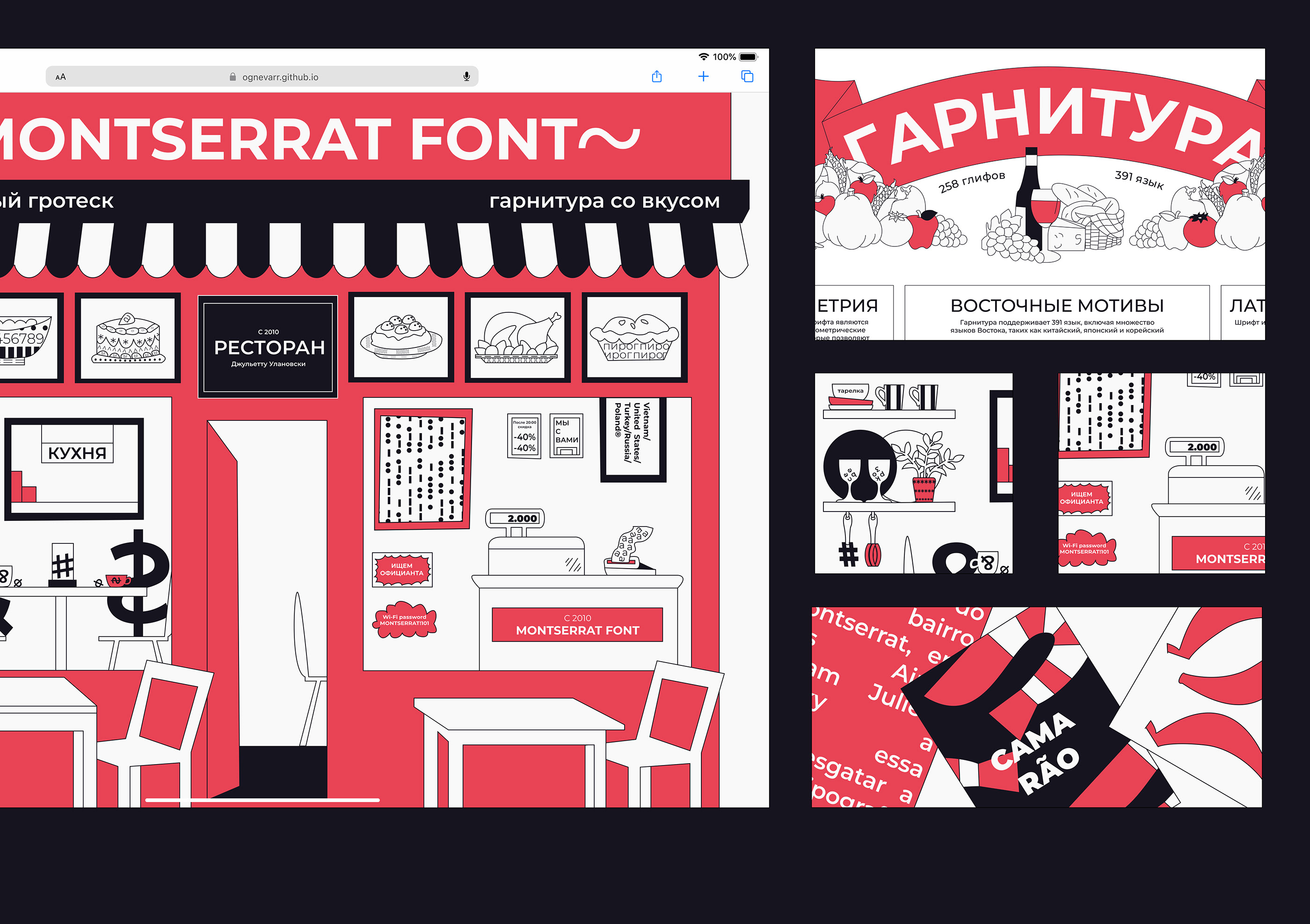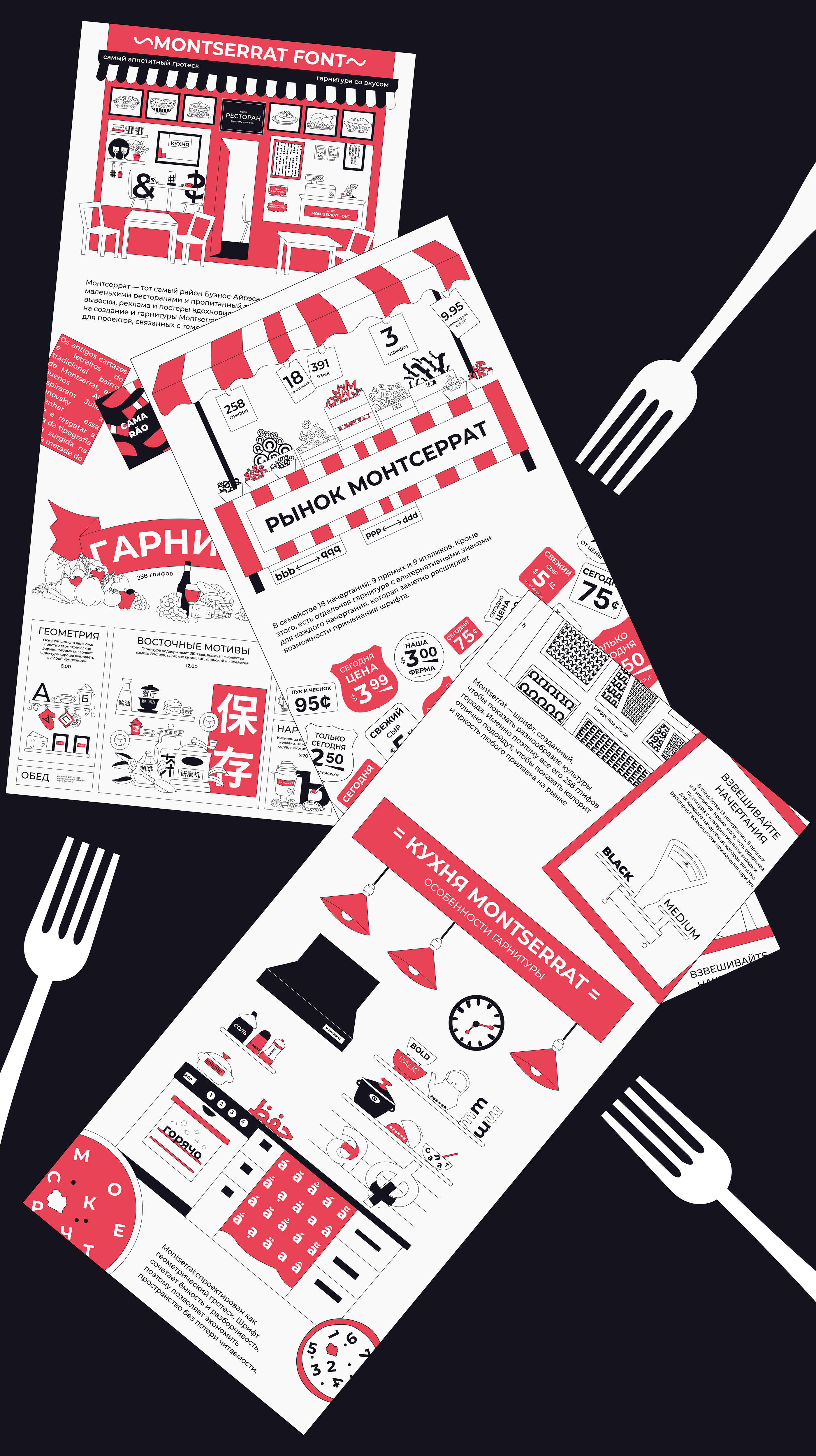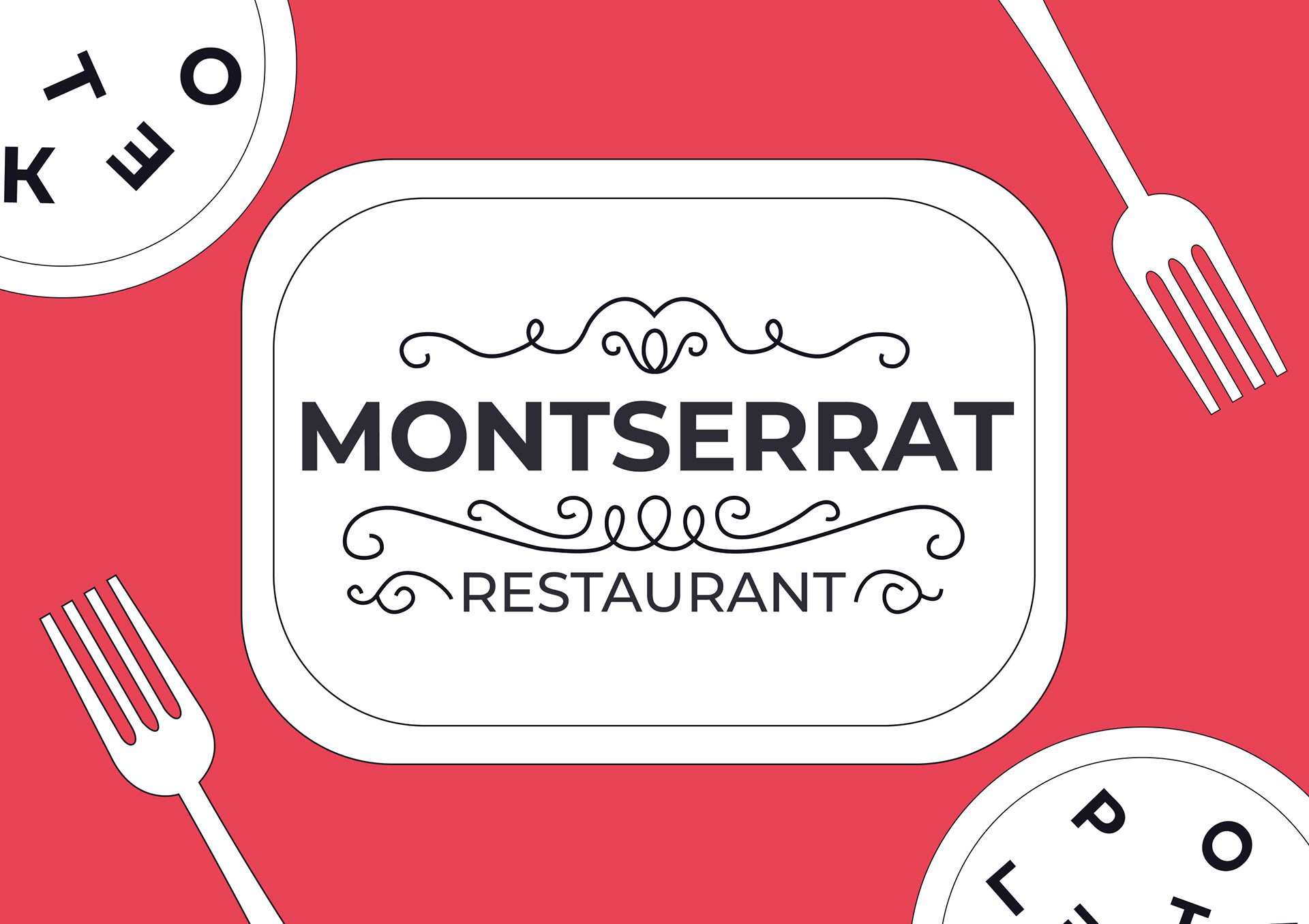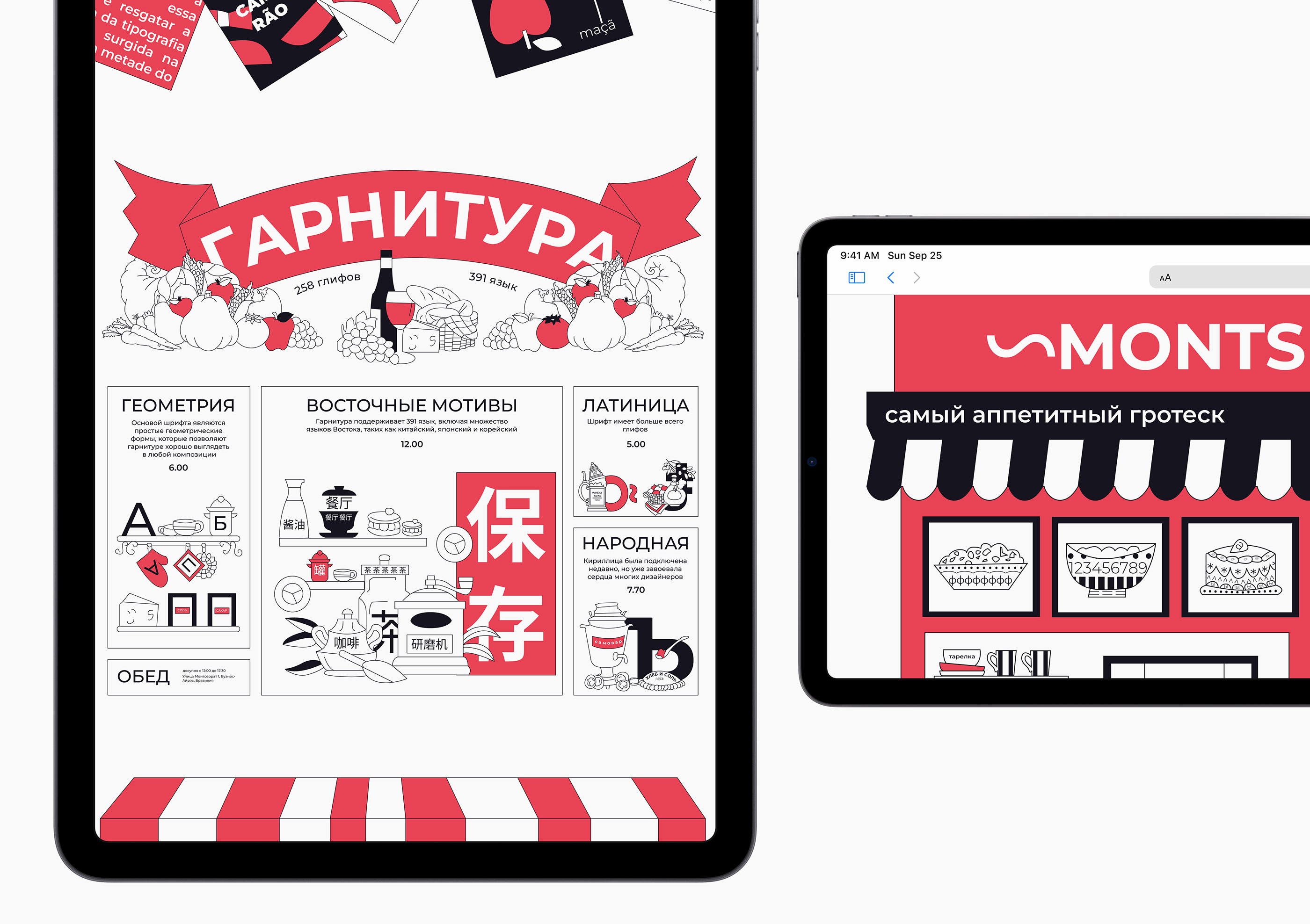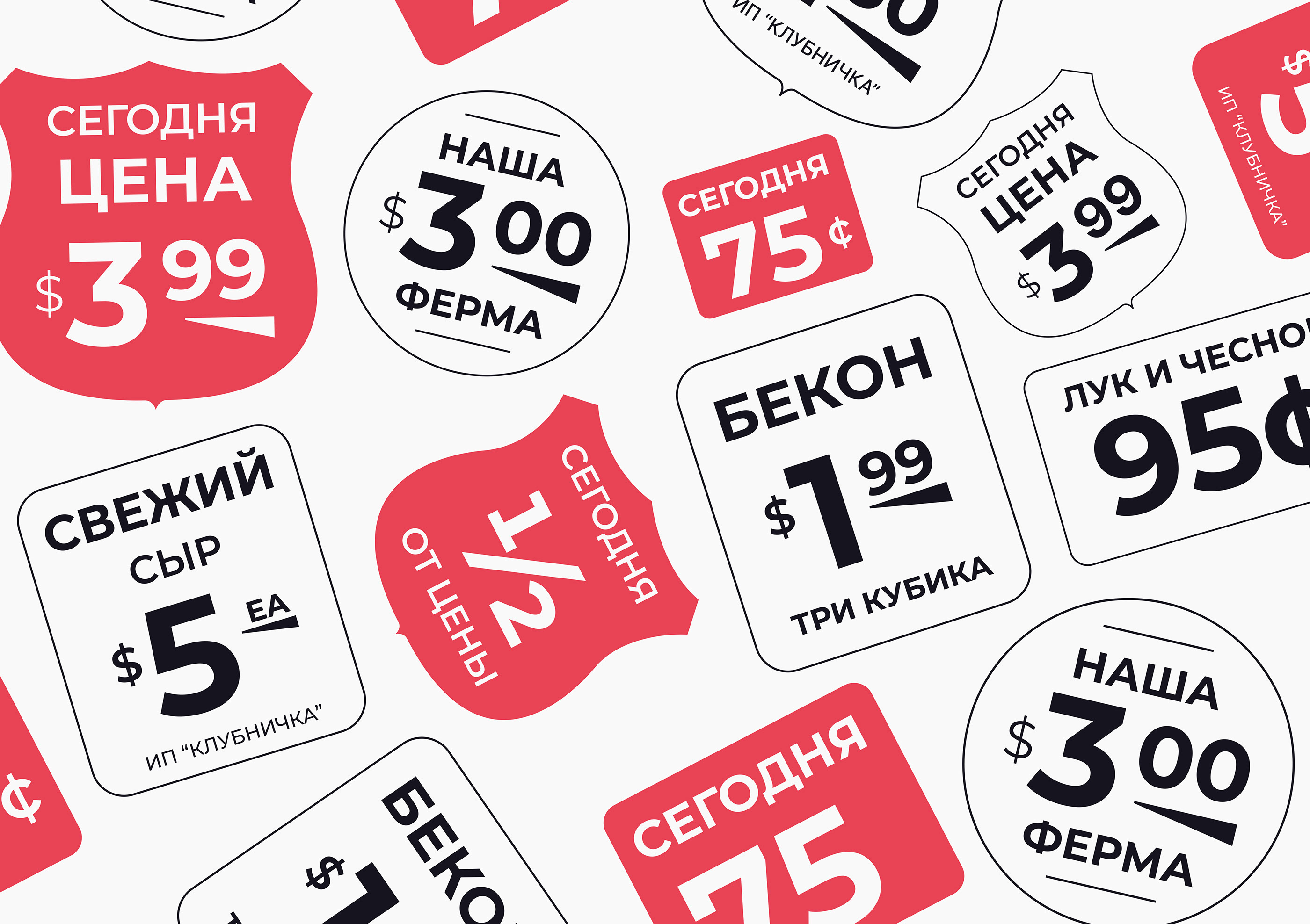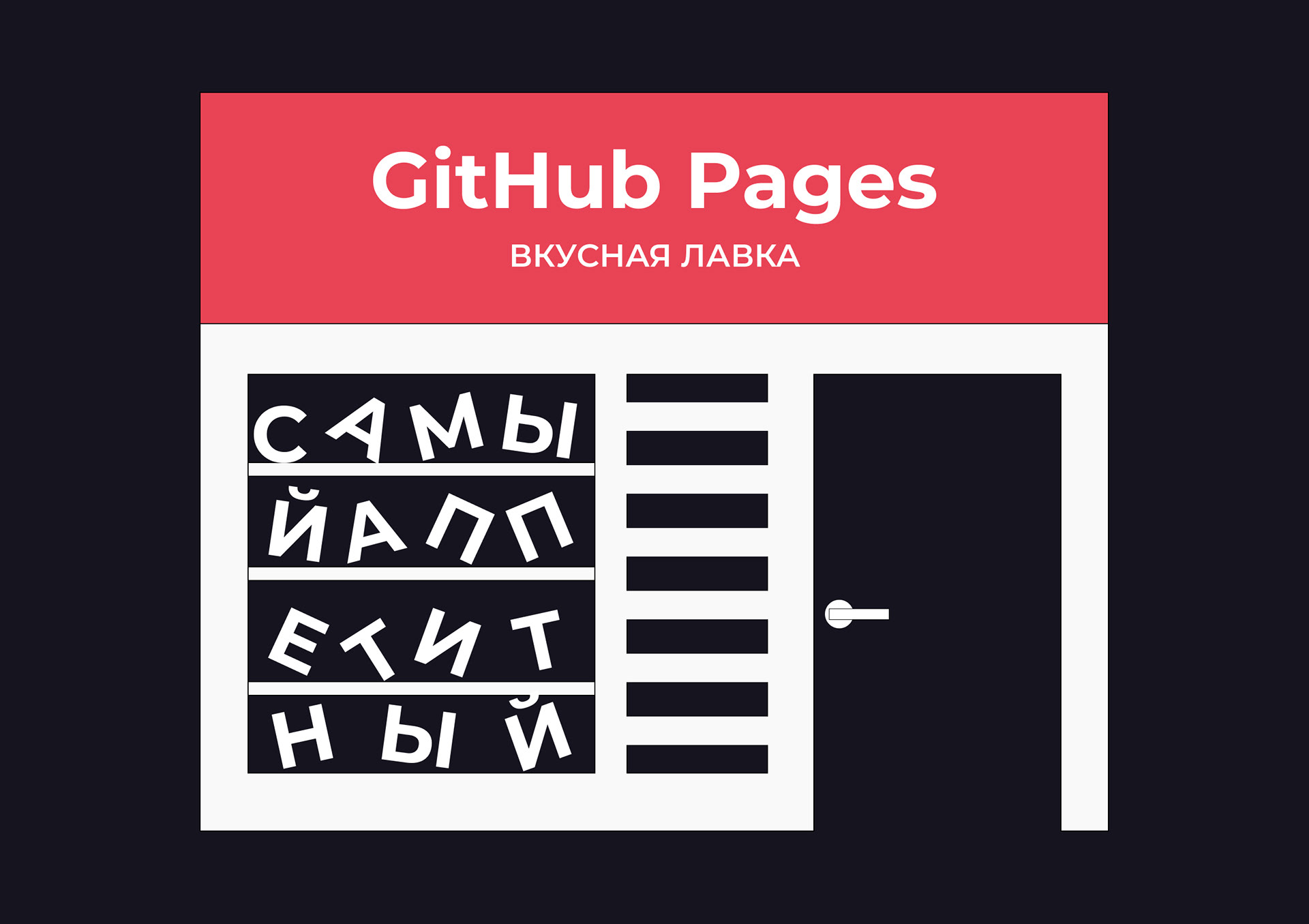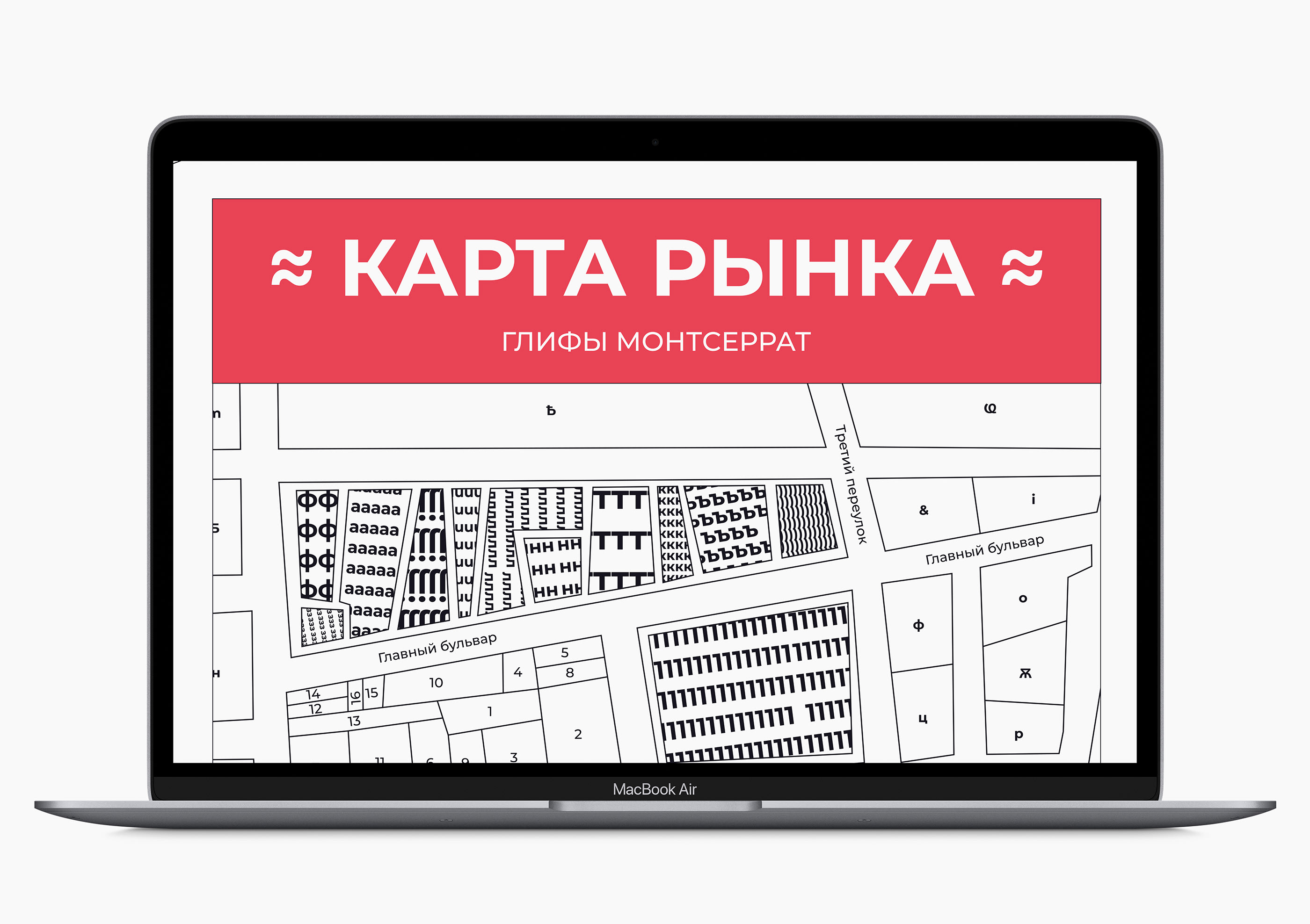
Montserrat font: самый аппетитный гротеск
The landing page tells about the features of the Montserrat typeface, inspired by posters and signs of restaurants in the vibrant Montserrat district of Buenos Aires. It is ideal for menus, headings and typography integrated in the food theme.
The interesting feature of the project is the amount of details